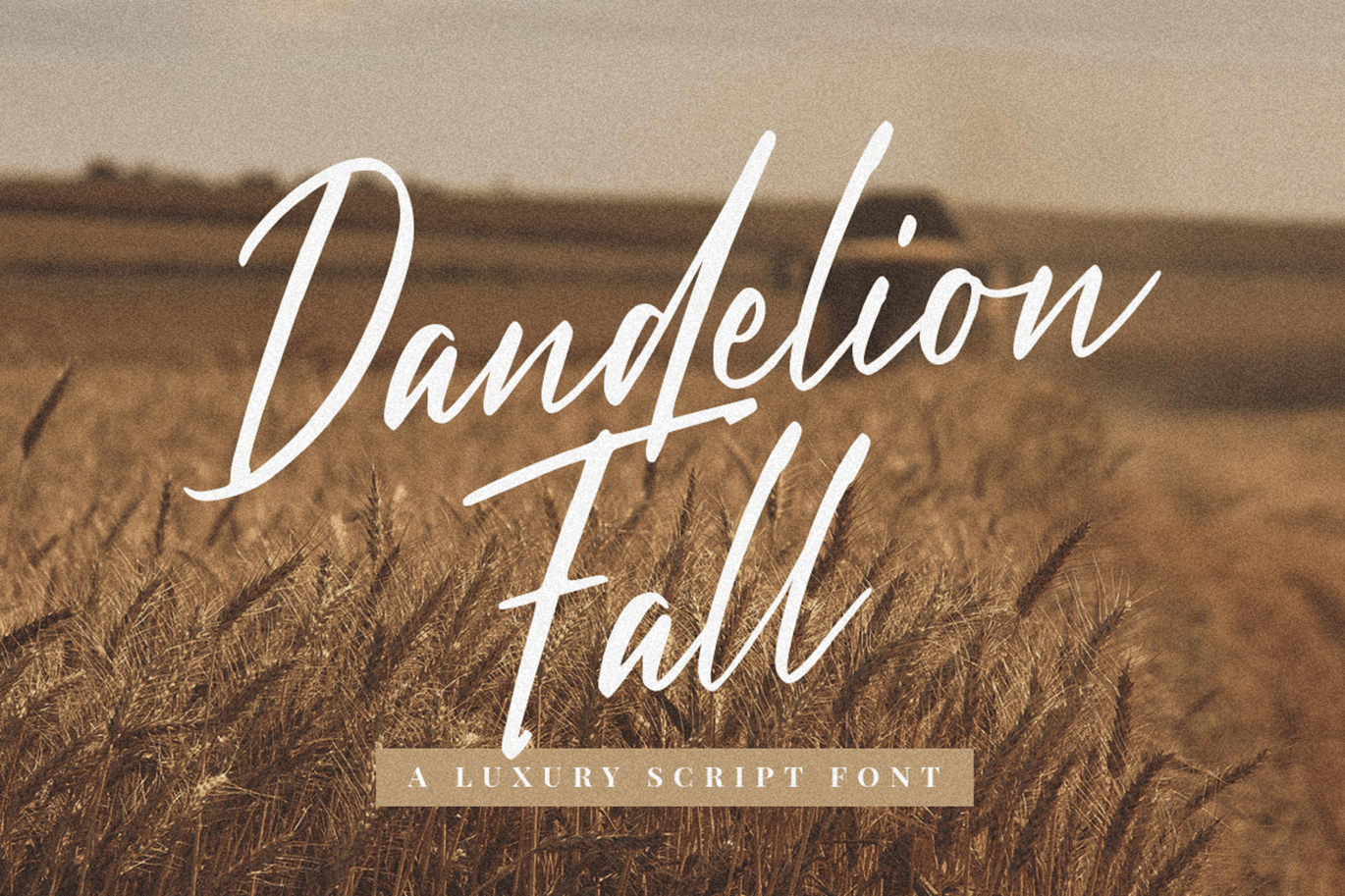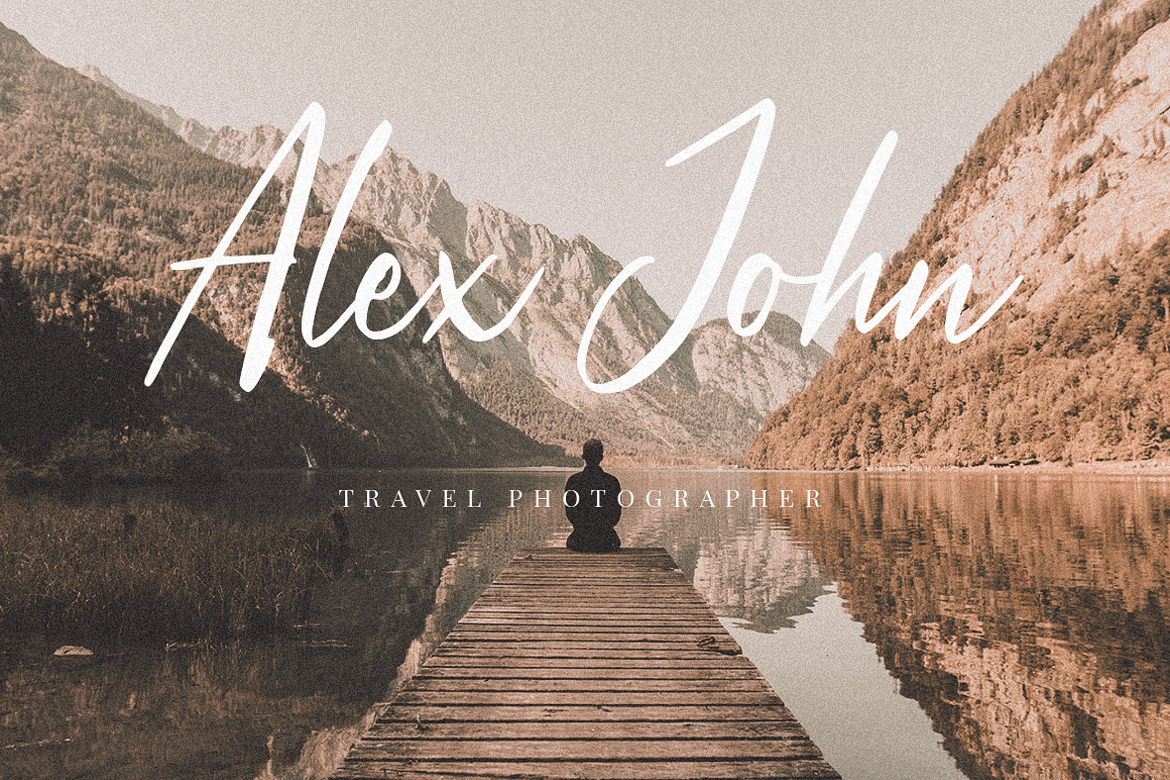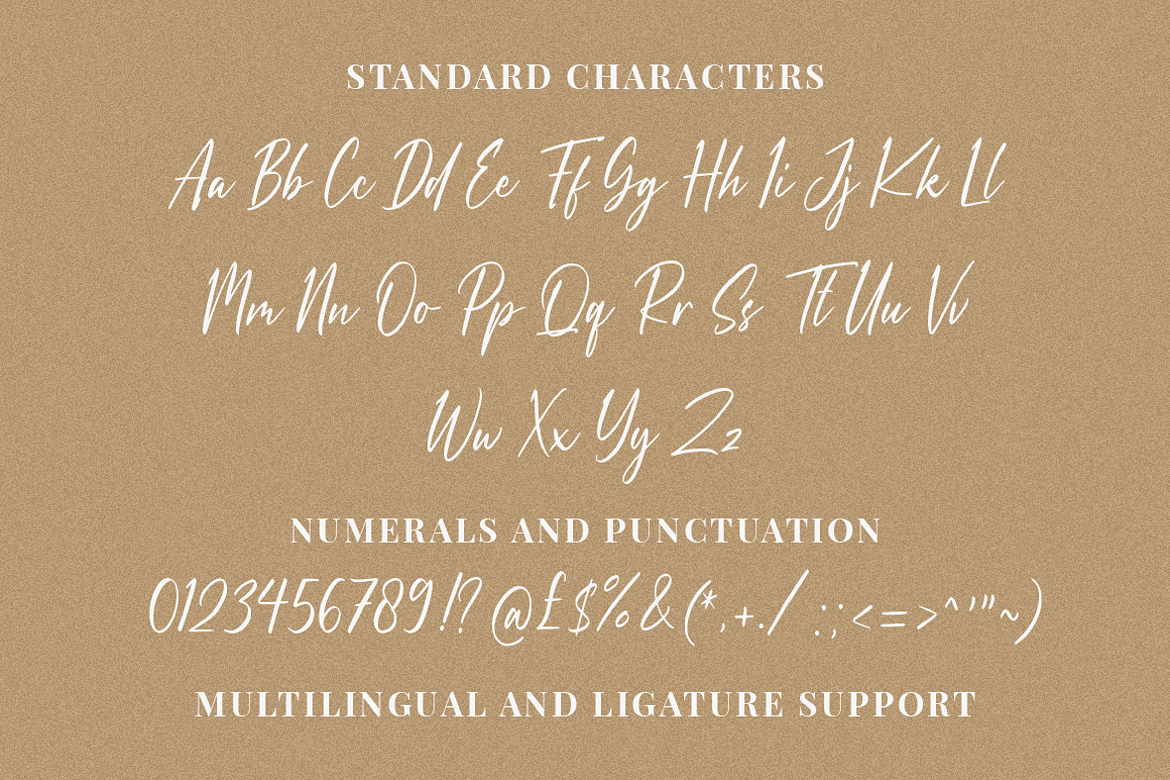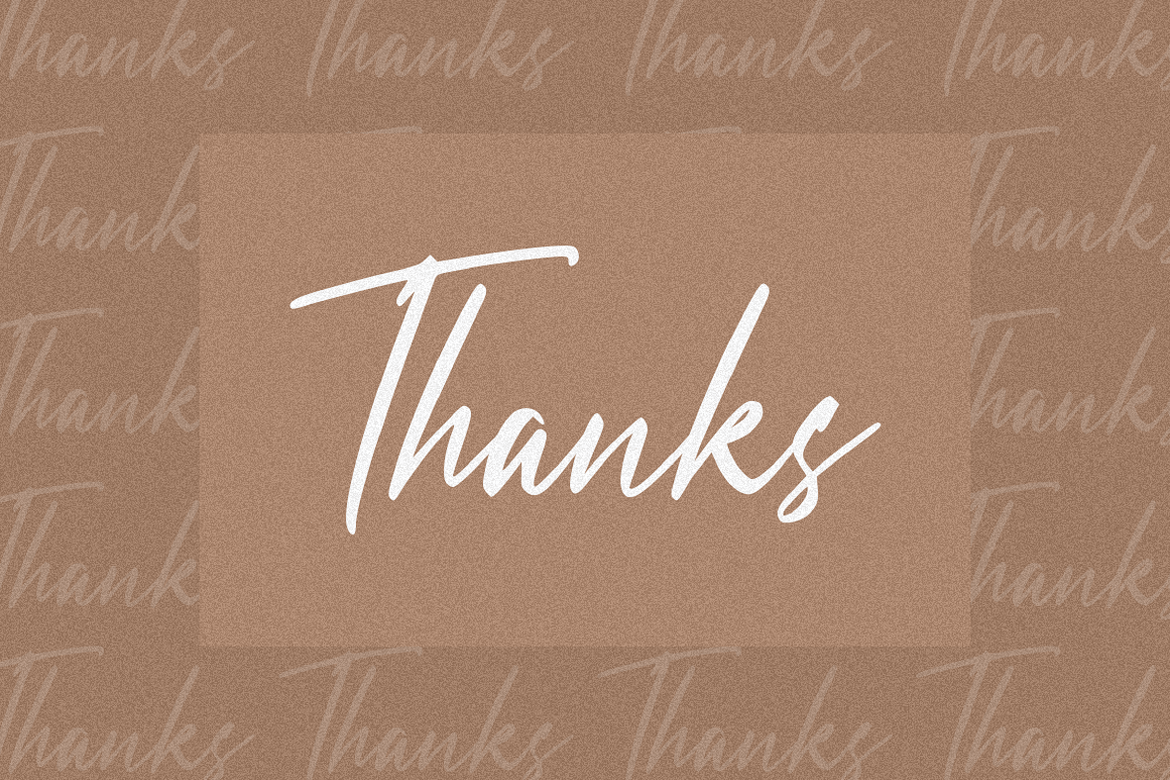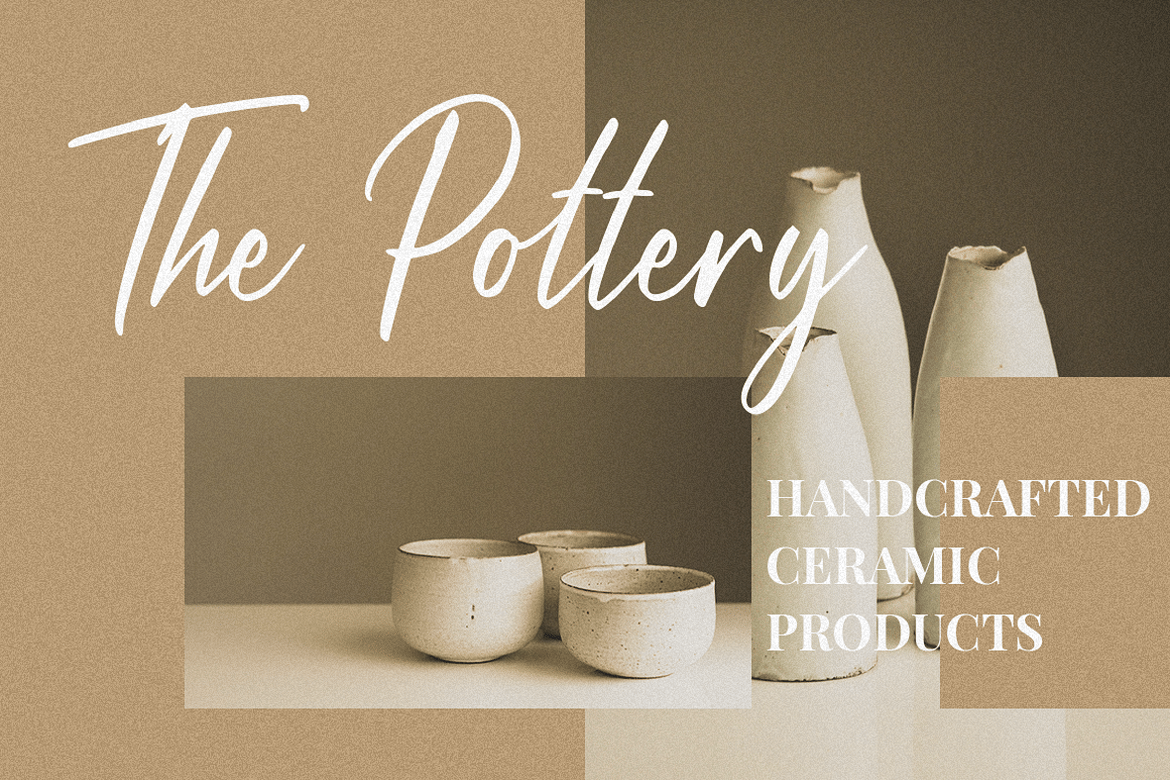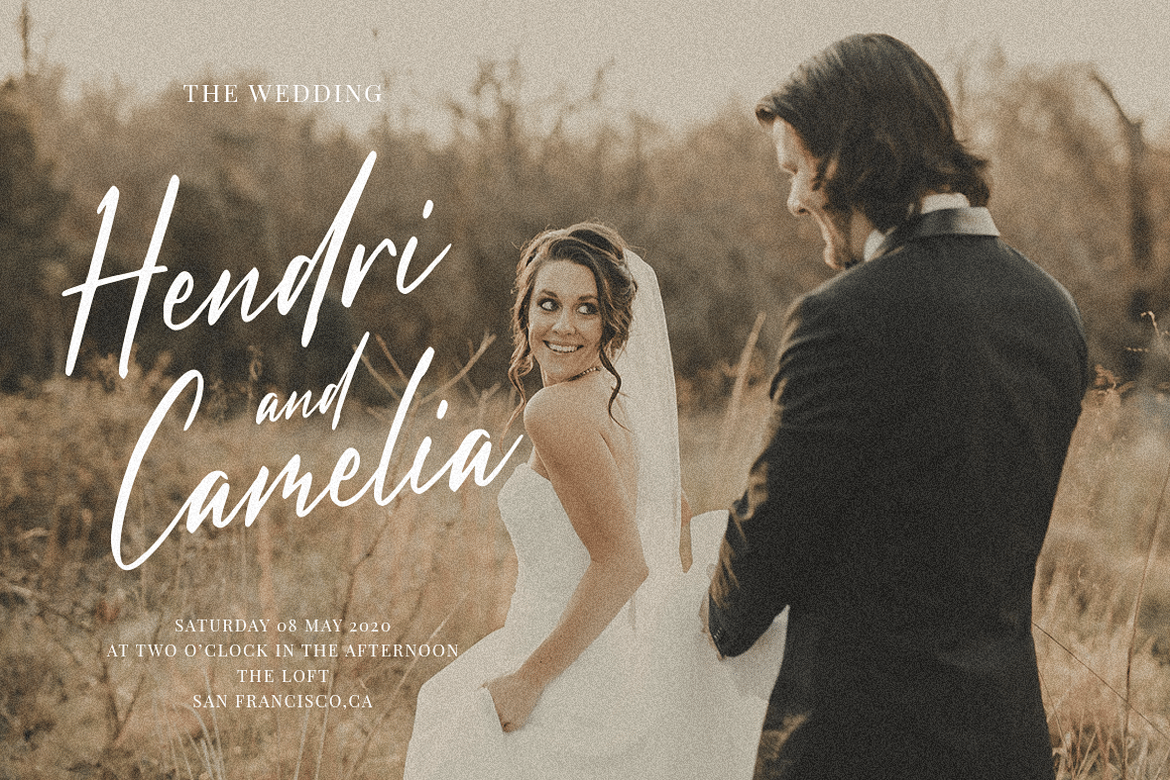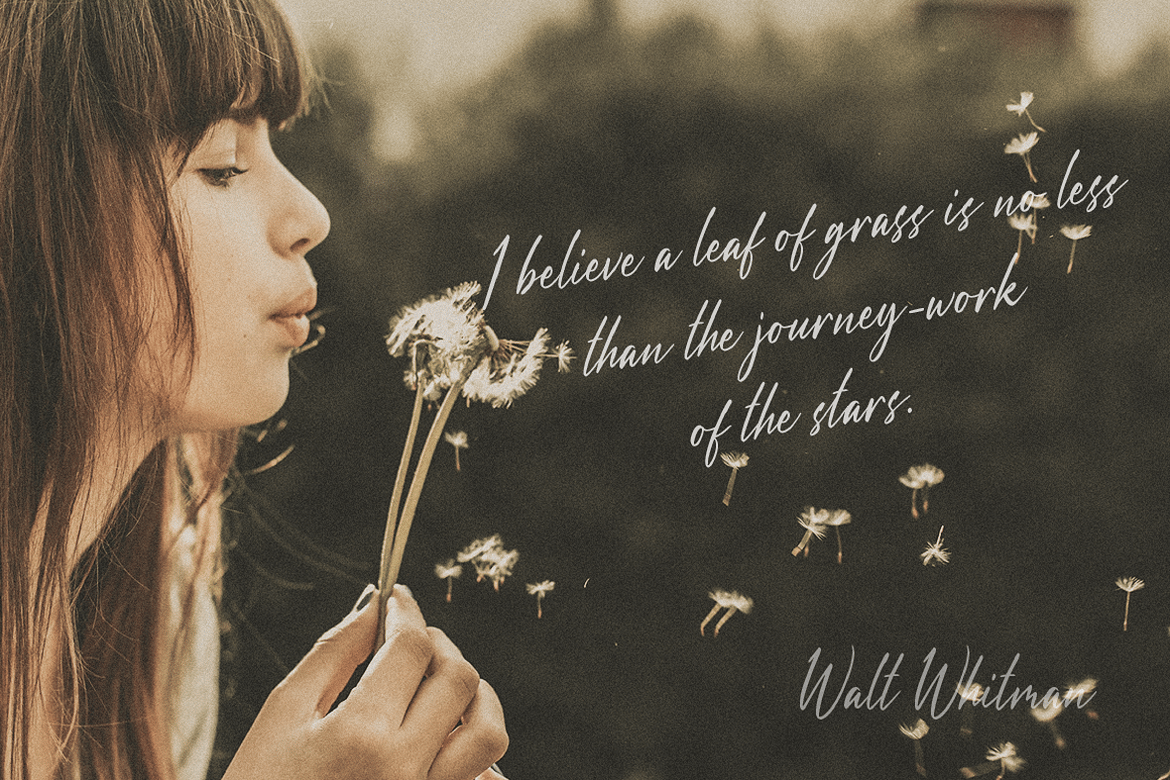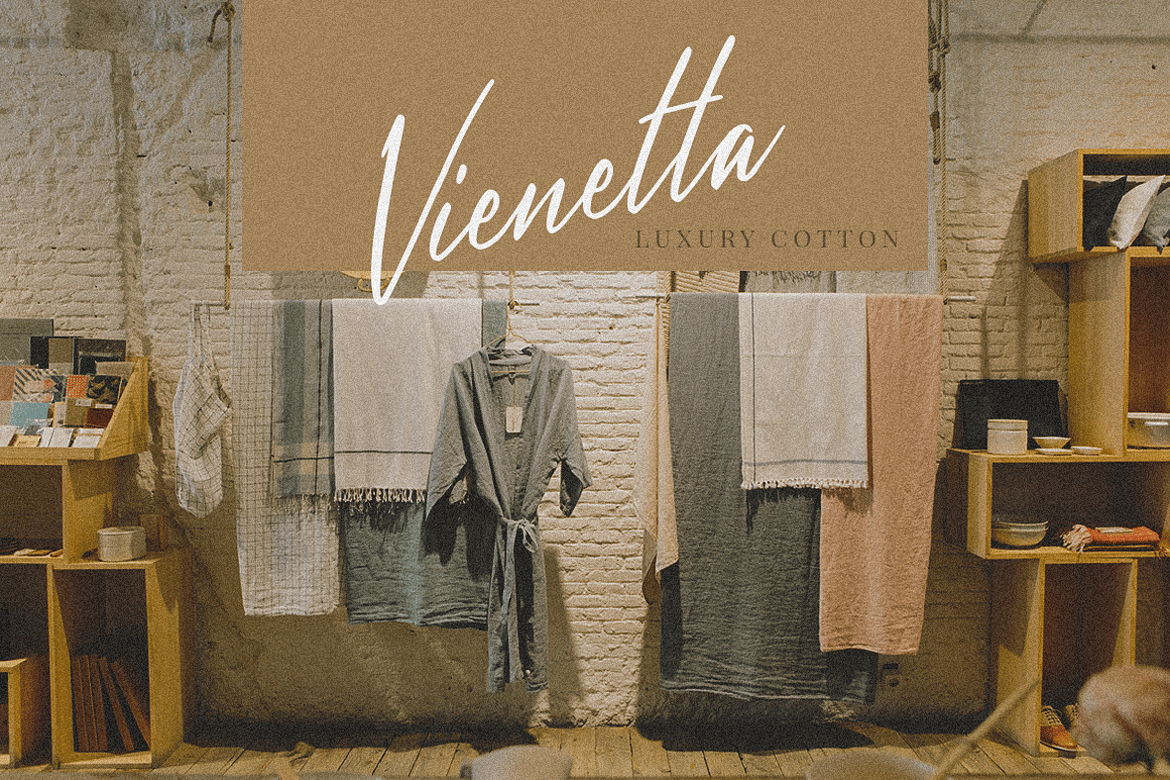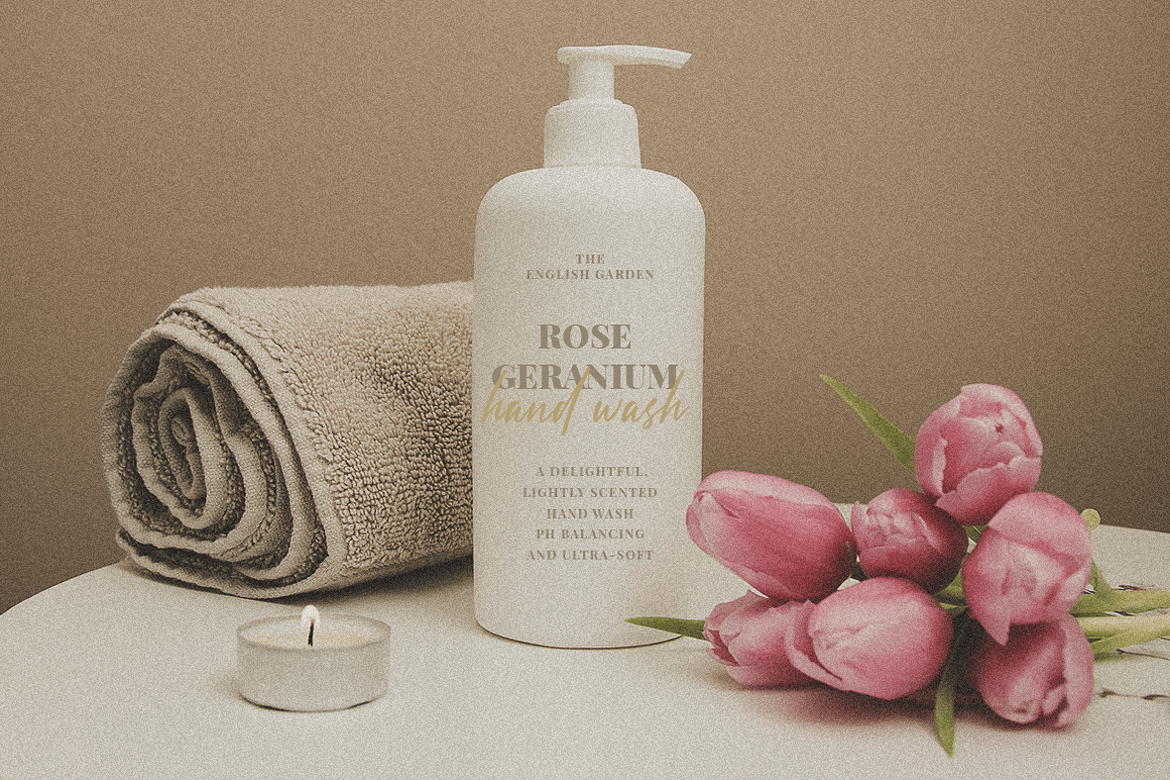
Dandelion Fall
Introducing Dandelion Fall– A Luxury Script Font.
This font is more than just another script font. It encapsulates the essence of luxury and personalization with each stroke and every curve. Lose yourself in the romance of a crisp Fall morning, or soaking up the last drops of the sun in a golden harvest field.
Breathe life into your branding with Dandelion Fall. This Luxury Script font is perfect for headings, logos, business cards, printed quotes, wedding invitations, cards, packaging, and your website or social media branding.
- Multilingual & Ligature Support
- Full sets of Punctuation and Numerals